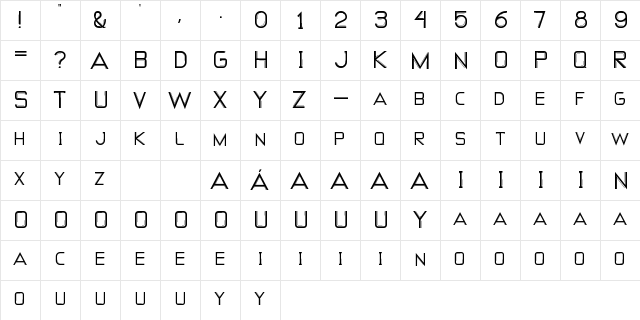
NARROW STREETS Regular
Design Context for NARROW STREETS Typeface
NARROW STREETS offers clean, dependable letterforms without strong stylistic allegiance, making it a practical choice for designers who need flexibility. The condensed width makes it efficient for tight spaces without sacrificing legibility.